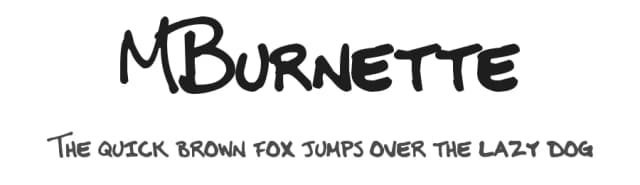
About MB Chicken Scratch Font
MB Chicken Scratch is a script & handwritten font designed by Marcus Burnette. It includes 103 glyphs, a medium weight, TTF (TrueType) format, and 107 languages. MB Chicken Scratch is free to download; check the license details on this page before commercial use. Script & handwritten fonts like MB Chicken Scratch work best for wedding invitations, greeting cards, signatures, and elegant branding.
MB Chicken Scratch Font is a script font that shines as a display or heading face. Pair it with a clean sans-serif or serif font for body text β the contrast creates a clear hierarchy while the two styles stay balanced and easy to read.
MB Chicken Scratch Font
MB Chicken Scratch Font is a script handwritten typeface by Marcus Burnette, ideal for logos, invitations, branding, and creative projects.